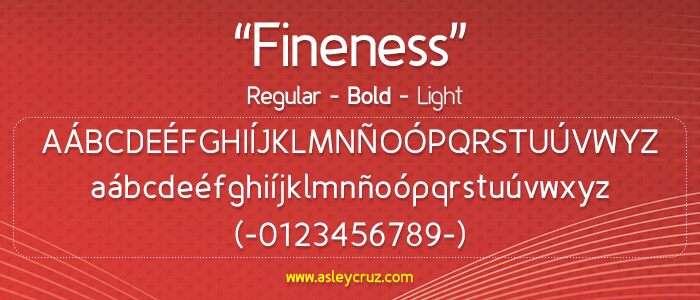
Fineness Light, designed by Asley Cruz, is a free light sans serif with exceptionally slender strokes, tall proportions, and broad, rounded curves. Its open construction feels calm and exact.
Fine-line illustration and architectural photography share the font's clean linear quality, making it useful for gallery posters and editorial covers. On cosmetics packaging, its restrained weight can support a refined brand identity alongside photographs or botanical drawings in a restrained product story. The generous rounds and narrow strokes also suit fashion campaigns and cultural event programs, where the repeated curves can echo simple line art, circular framing, and flowing fabric shapes.